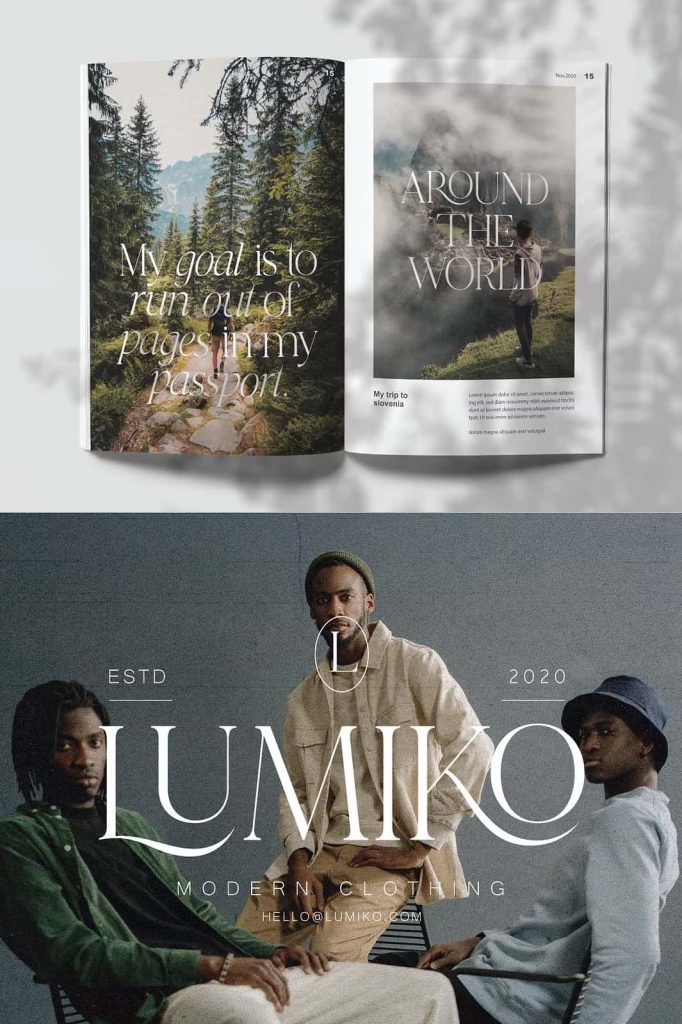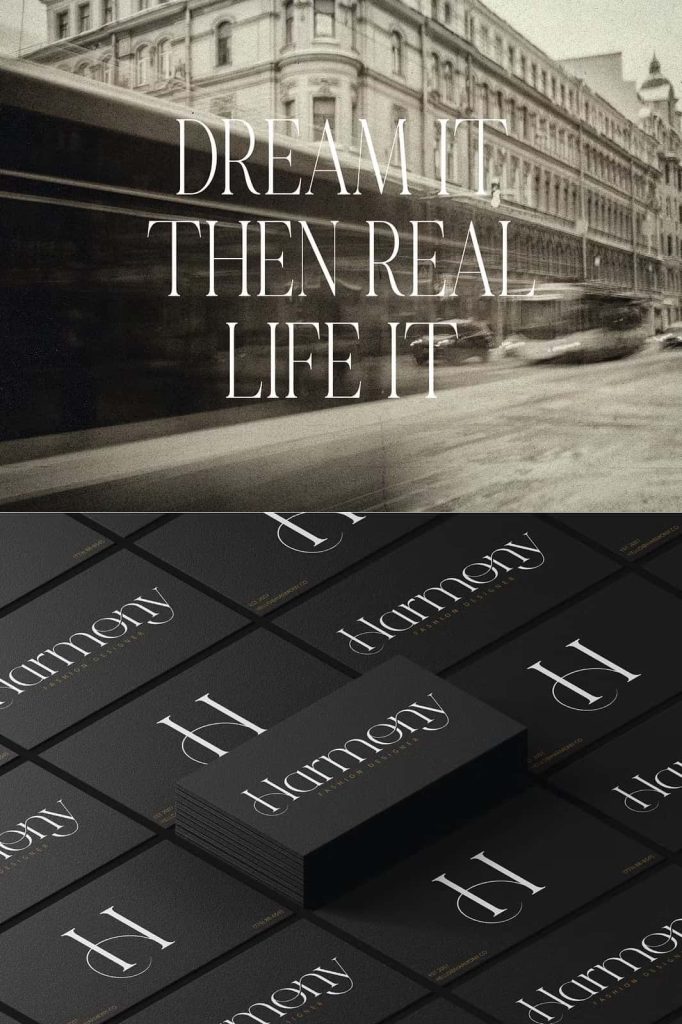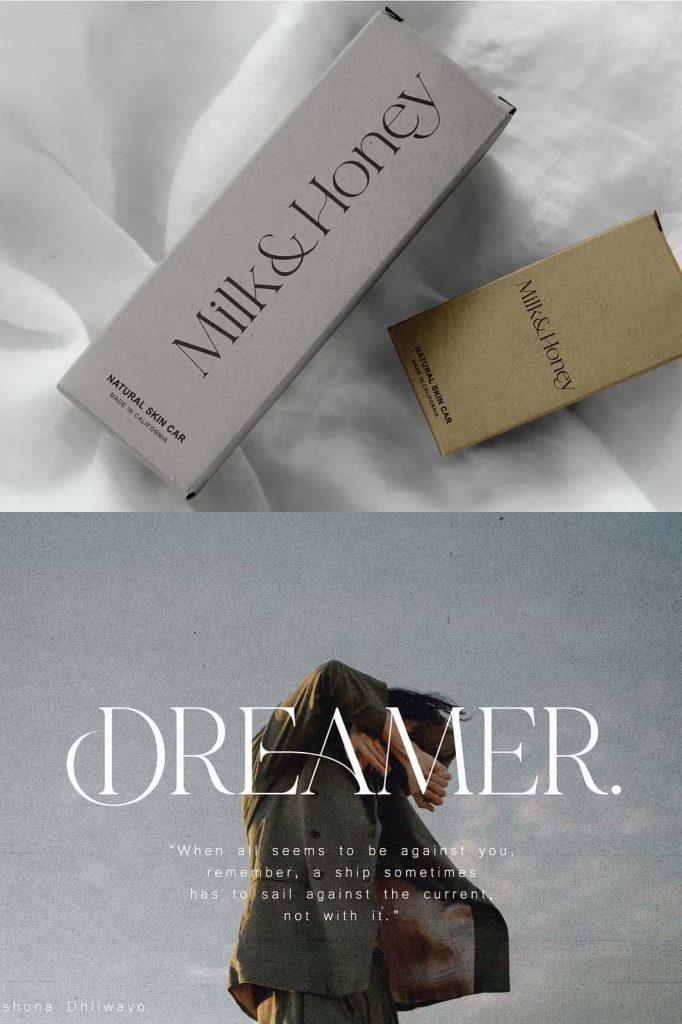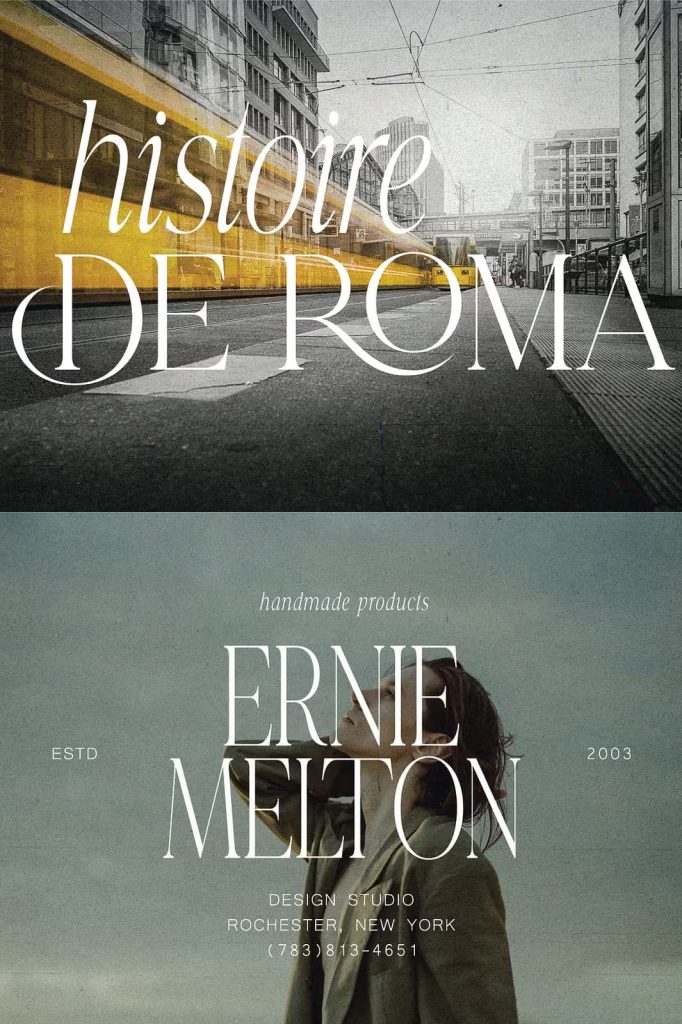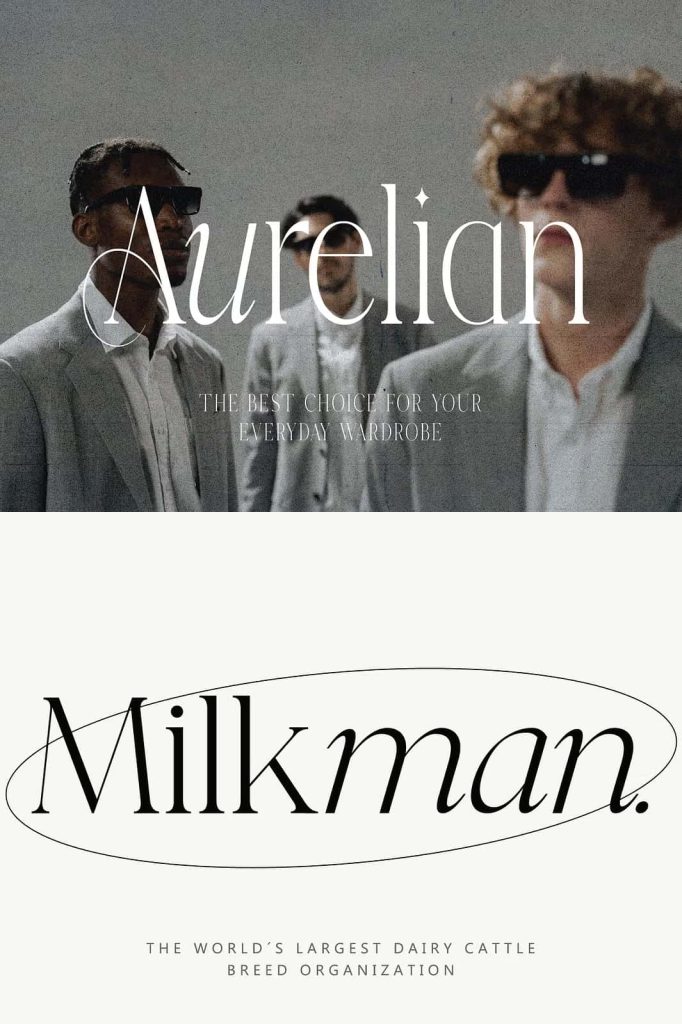
Misspiece – Stylish Modern font
Misspiece Luxury Serif Font
Misspiece Luxury Serif Font is a refined and elegant typeface designed to bring sophistication, beauty, and timeless character to modern creative projects. Featuring carefully crafted letterforms, graceful ligatures, and a beautifully designed italic version, Misspiece offers the perfect balance between classic vintage aesthetics and contemporary design trends. This premium serif font delivers a luxurious visual experience that helps designers create memorable and visually captivating compositions.
Inspired by the elegance of traditional typography and enhanced with modern refinements, Misspiece provides exceptional versatility for both print and digital applications. Whether you are developing a luxury brand identity, designing wedding stationery, creating editorial layouts, or producing stylish social media content, this font offers the sophistication needed to elevate every project.
A Luxury Serif Font with Timeless Elegance
Misspiece was created for designers who appreciate refined typography and attention to detail. Every character reflects a sense of grace and professionalism, making the font ideal for projects that require a premium and polished appearance. The carefully balanced proportions, elegant curves, and sophisticated contrast create a visual identity that feels both timeless and contemporary.
Unlike ordinary serif fonts, Misspiece introduces a unique personality that blends classic beauty with modern versatility. This combination allows designers to create designs that feel luxurious without appearing outdated. The font communicates confidence, refinement, and artistic excellence, making it a valuable tool for branding and high-end visual communication.
Its elegant structure allows it to perform beautifully in both large headlines and smaller supporting text, ensuring consistency throughout an entire design system.
Graceful Ligatures for Sophisticated Typography
One of the defining features of Misspiece Luxury Serif Font is its collection of graceful ligatures. These carefully designed character combinations create smooth transitions between letters, resulting in typography that feels fluid, natural, and visually harmonious.
Ligatures help transform ordinary text into elegant typographic compositions by adding subtle details that enhance readability and visual appeal. Designers can use these features to create custom-looking logos, refined headlines, premium packaging, and sophisticated editorial layouts without the need for extensive manual adjustments.
The ligatures seamlessly integrate with the font’s overall design, helping maintain a polished appearance while adding an extra level of exclusivity and craftsmanship.
Benefits of Misspiece Ligatures
• Create elegant and professional typography.
• Enhance the flow and rhythm of text.
• Add a custom-crafted appearance to branding projects.
• Improve visual harmony in headlines and logos.
• Reduce repetitive letter combinations.
• Increase the overall sophistication of designs.
Beautifully Crafted Italic Version
Misspiece includes a carefully designed italic style that complements the main typeface perfectly. Rather than simply slanting the original characters, the italic version has been thoughtfully developed to preserve elegance while introducing movement and personality.
This italic variation provides designers with additional creative flexibility, allowing them to create emphasis, contrast, and visual hierarchy throughout their projects. The flowing forms and graceful details of the italic style work beautifully in invitations, editorial content, luxury branding materials, and artistic typography compositions.
When paired with the regular version, the italic style helps create rich and engaging layouts that feel refined and professionally crafted.
A Perfect Blend of Vintage Charm and Modern Design
Misspiece successfully combines the romantic beauty of vintage typography with the clean sophistication of contemporary design. This fusion creates a font that feels familiar and timeless while remaining highly relevant for modern creative projects.
The subtle vintage influence adds warmth and character to the typeface, making it particularly effective for brands and projects that want to communicate authenticity, elegance, and heritage. At the same time, its modern structure ensures excellent usability across digital platforms, print media, and branding systems.
This balance makes Misspiece suitable for both traditional luxury industries and contemporary creative businesses.
Ideal for Premium Branding Projects
Luxury brands require typography that reflects quality, exclusivity, and attention to detail. Misspiece Luxury Serif Font provides exactly that through its elegant construction and sophisticated visual presence. Designers can use the font to create memorable brand identities that establish trust and communicate premium value.
Whether you are creating a luxury brand identity, designing a wedding suite, producing editorial content, or developing elegant social media campaigns, Misspiece delivers the beauty, flexibility, and professional quality needed to achieve exceptional results. Its refined character and artistic craftsmanship make it an essential font for designers seeking sophistication and timeless style.